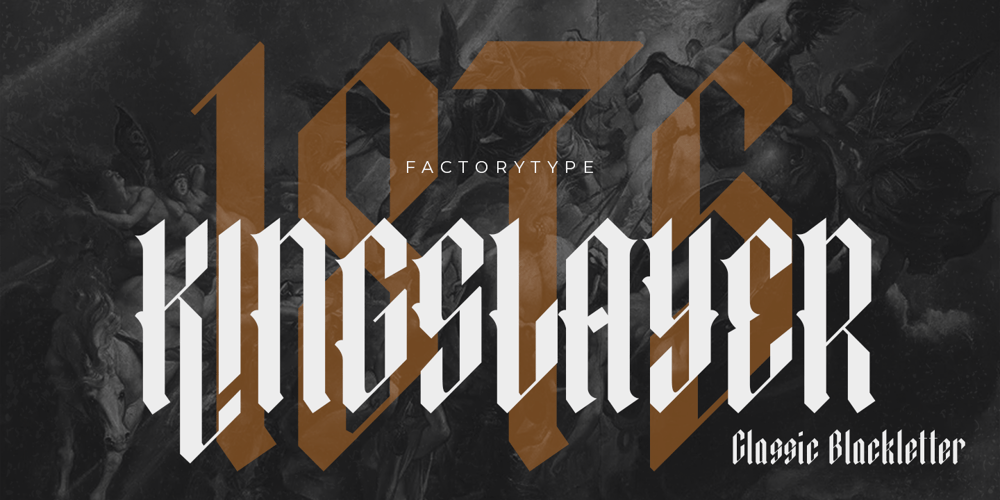
Kingslayer1875
Kingslayer1875 font
Kingslayer1875 Font Family was designed by Wahyu Rahmawan and published by Factory738. Kingslayer1875 contains 5 styles and family package options. Kingslayer1875 is a typeface inspired by German Blackletter Fraktur with a twist of Sweden. The elegant design was created by fusing modern and vintage elements. The available Ligatures provide a diverse range of characters to make your project design stand out. 5 Styles (Regular, Inline, Outline, Shadow, Simple) Basic Latin A-Z and a-z Numerals & Punctuation Stylistic Ligatures and Alternate glyps Multilingual Support for ä ö ü Ä Ö Ü … Free updates and feature additions Thanks for looking, and I hope you enjoy it.